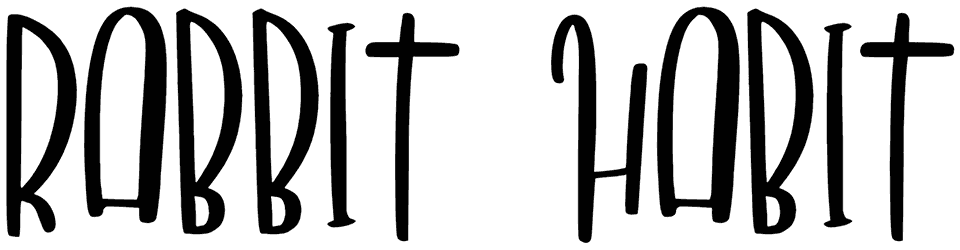
Rabbit Habit Font
Rabbit Habit is a script font that is designed without any rules, thus it conveys a sense of happiness, grunge, smudgy, and disorder. Although it doesn’t support numbers, you can include it in book illustrations, digital banners, and menus. We have provided dozens of trendy and fabulous cute fonts, so if you lack a good font, don’t hesitate to visit our rich archive.